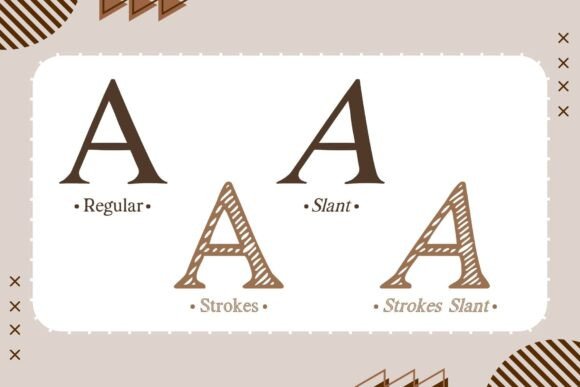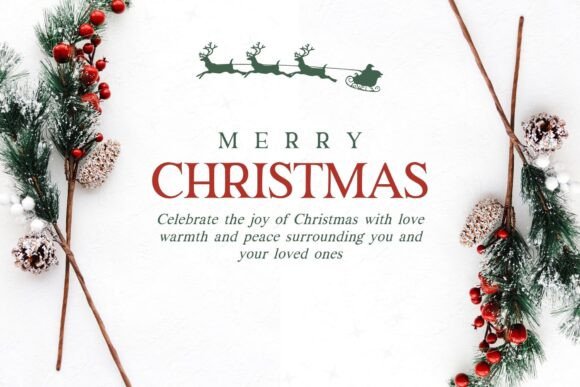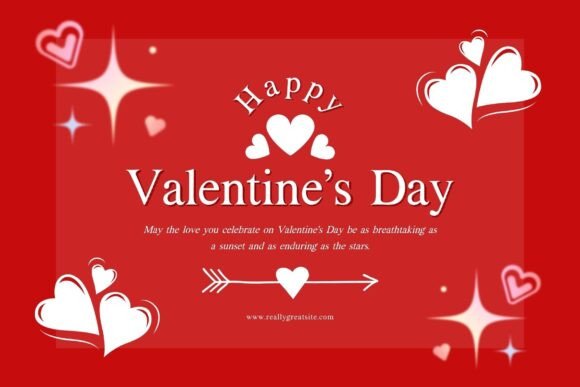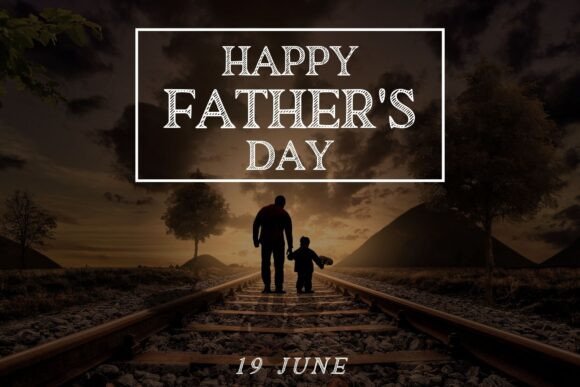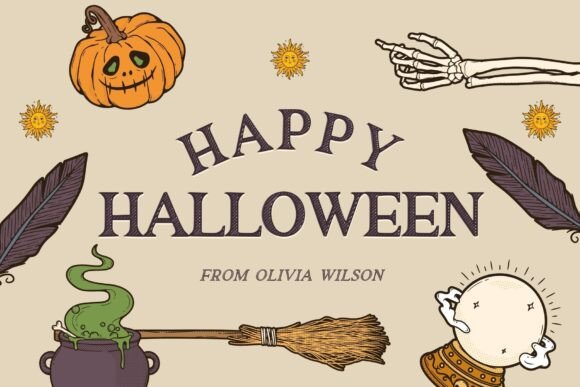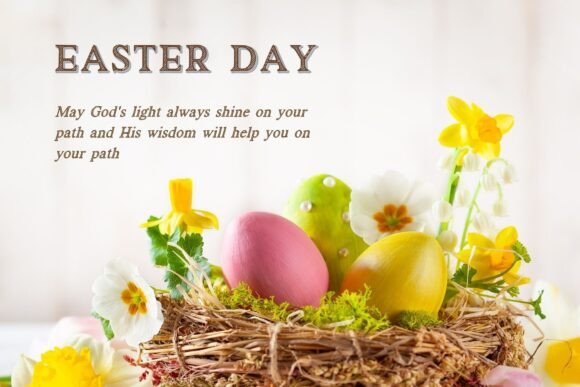
Introduction to Fox Adonis Font
Fox Adonis is a versatile and elegant serif typeface that offers multiple styles to suit various design needs.
This typeface is suitable for branding, editorial designs, invitations, and more, allowing designers to create both elegant and eye-catching projects .
Key Features of Fox Adonis Font
Why Choose Fox Adonis Font?
Fox Adonis Font offers exceptional quality and versatility, making it a valuable addition to your design toolkit. Whether you’re creating for personal projects or commercial use, Fox Adonis Font delivers professional results.